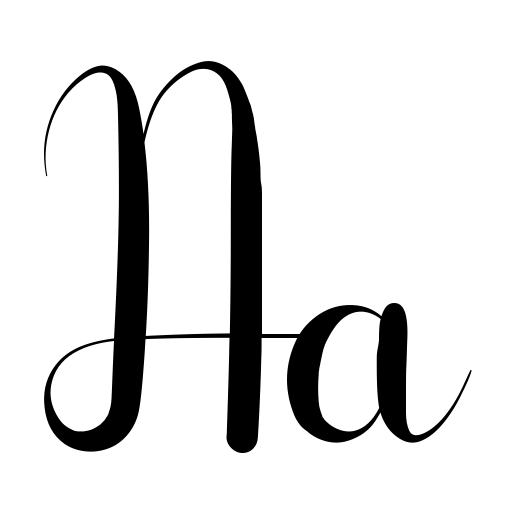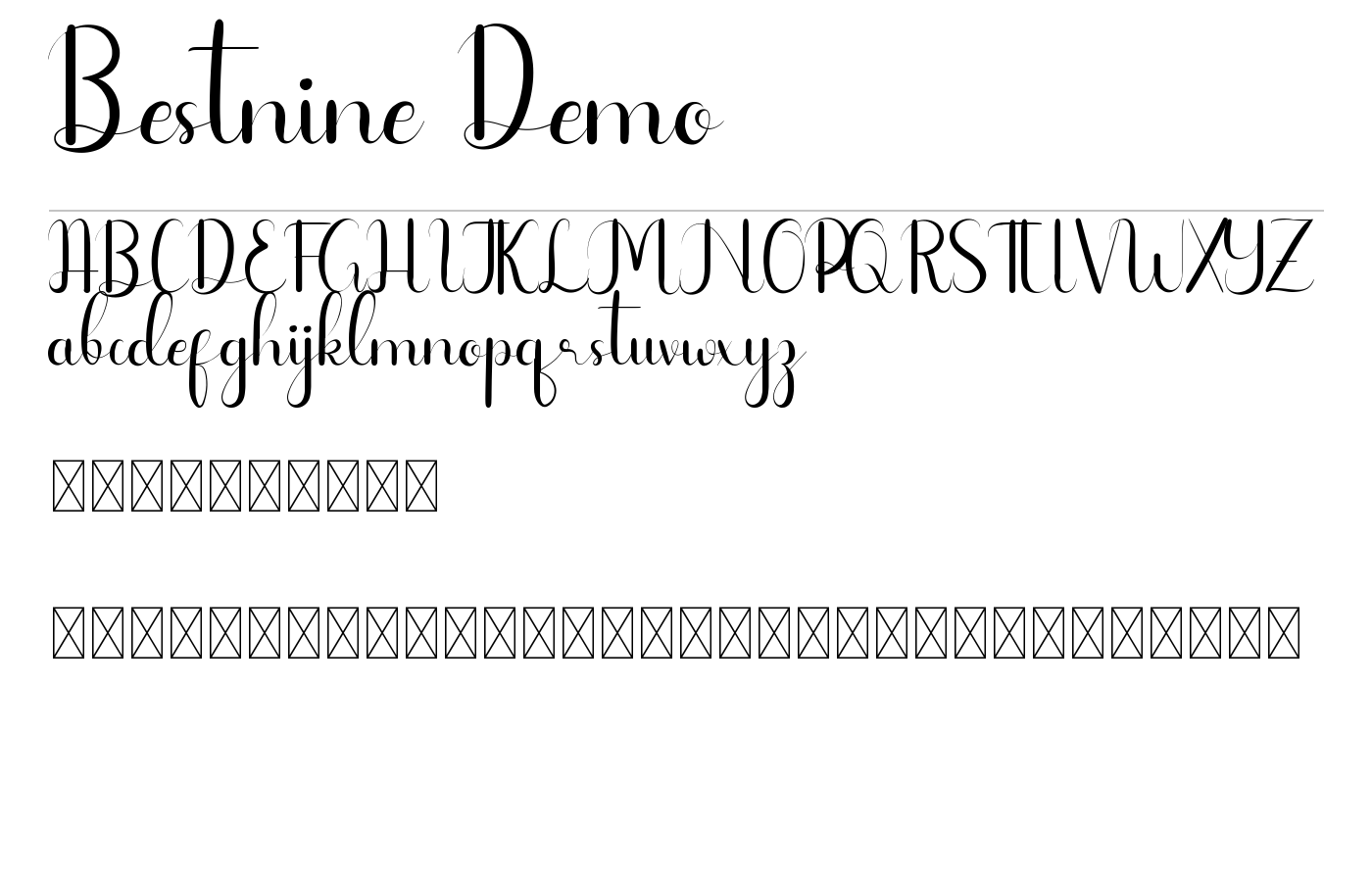
Bestnine Demo is an elegant script font that combines tall, slender letterforms with delicate, flowing strokes, giving it a refined and sophisticated look. Its high contrast between thick and thin lines and graceful swashes make it perfect for luxury branding, invitations, and decorative headlines where a stylish, modern touch is desired.
Bestnine Demo Font
About Bestnine Demo Font